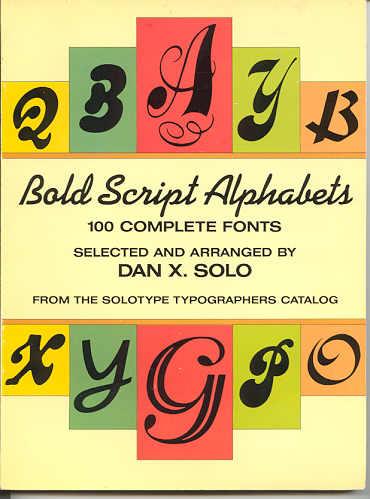
Bold Script Alphabets: 100 Complete Fonts
Among these fonts is a great variety of densities and styles, providing artists with a maximum number of opportunities for creating the right look―from the elegant Adastra Royal to the commanding Elvira Bold Italic. Also available are Brandy Script, Derby, Discus Semibold, Fulton Sign, Gloriosky, Mardi Gras, Signwriter's Script, Veltro Bold, Brush, Diana Bold, Flash, Gillies Gothic, Lily Ann, Novelty Script, Swinger, Zorba Solid, and more than 80 other attractive fonts.
This treasury of outstanding, yet immensely practical typefaces is ready for effective use in headlines, newsletters, on posters, signs, menus―all forms of print media.